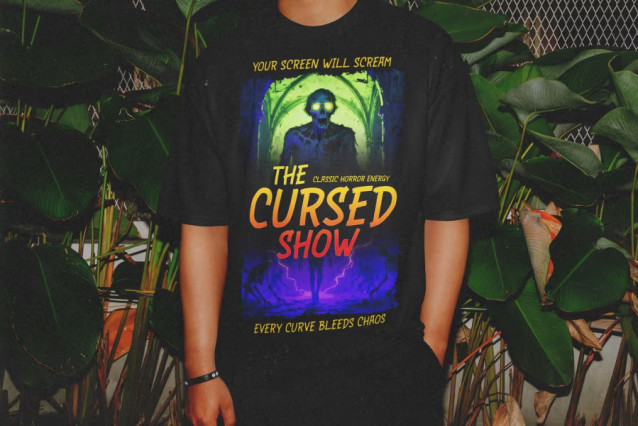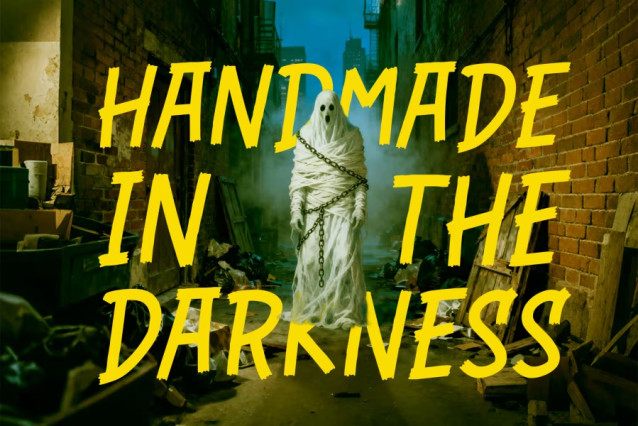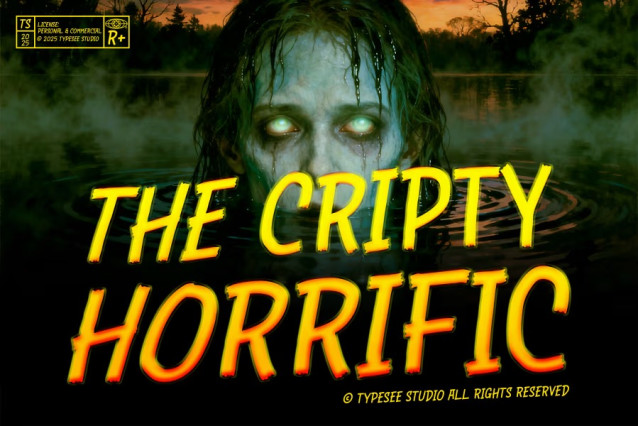
The Cripty Horrific Font
The Cripty Horrific Font is a terrifying uppercase display font built for horror storytelling. Each letter drips with tension—rough, uneven, and alive with radioactive glow. Designed for Halloween campaigns, monster games, zombie movies, and ghostly visuals, this font captures the essence of chaos and fear. It brings a retro horror aesthetic with modern sharpness, making your titles and designs scream with intensity and cinematic dread. Whether for posters, trailers, or apparel graphics, this typeface embodies the dark thrill of the supernatural.